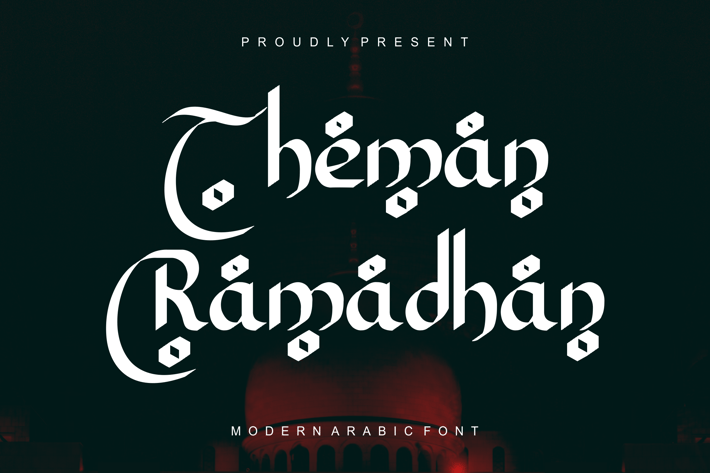
Theman Ramadhan - Arabic Style Typeface
Presenting Theman Ramadhan - Font is suitable for badge, labels, logo, branding, magazine, poster and etc. Our fonts have Uppercase & Lowercase, Numeral & Punctuation, Multilingual support and Opentype Features. For Amazing designs you can mix with other fonts as a complement.